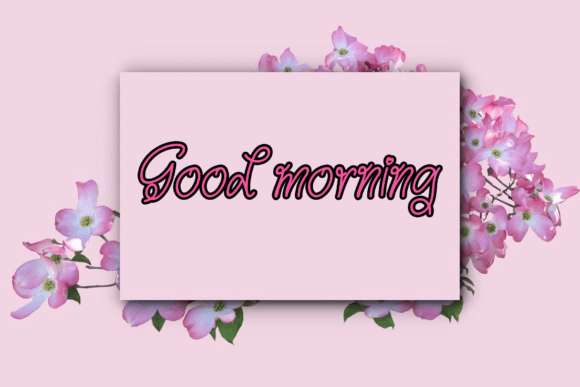
About Baby Duck Font
“Baby Duck Font: Adding an Elegant Touch to Your Projects
Introducing Baby Duck, a neat and beautiful handwritten font that captures an elegant touch, perfect for bringing a touch of sophistication to your favorite projects. Fall in love with its incredibly distinct and timeless style, and use it to create spectacular designs that resonate with charm and grace.
More than just a font, Baby Duck is an artistic expression that combines neatness and beauty. Each character is meticulously crafted, exuding an elegant touch that elevates the visual appeal of your projects. Whether you’re working on invitations, branding, or any creative endeavor, Baby Duck lends a touch of sophistication to your designs.
The distinct and timeless style of Baby Duck makes it a versatile choice for various applications. Its neat and beautiful handwritten script adds a personal and refined quality to your text. Use Baby Duck to bring an air of elegance to your favorite projects, creating designs that stand out with grace and charm.
Baby Duck’s elegant touch is particularly well-suited for invitations and stationery. Whether you’re planning a wedding or designing personalized cards, this font adds a touch of sophistication to every word, creating an unforgettable impression. Baby Duck transforms your invitations into timeless keepsakes.
Branding and logo design also benefit from the distinct and neat style of Baby Duck. The font’s elegance imparts a sense of refinement, making it an excellent choice for businesses that aim to communicate a timeless and sophisticated image. Baby Duck becomes a signature element that leaves a lasting imprint on your audience.
In conclusion, Baby Duck is more than just a font; it’s an exquisite tool that brings an elegant touch to your creative projects. Let Baby Duck be the source of inspiration that turns your designs into timeless and sophisticated masterpieces. Embrace the unique charm of Baby Duck and infuse your projects with a touch of grace and beauty.”